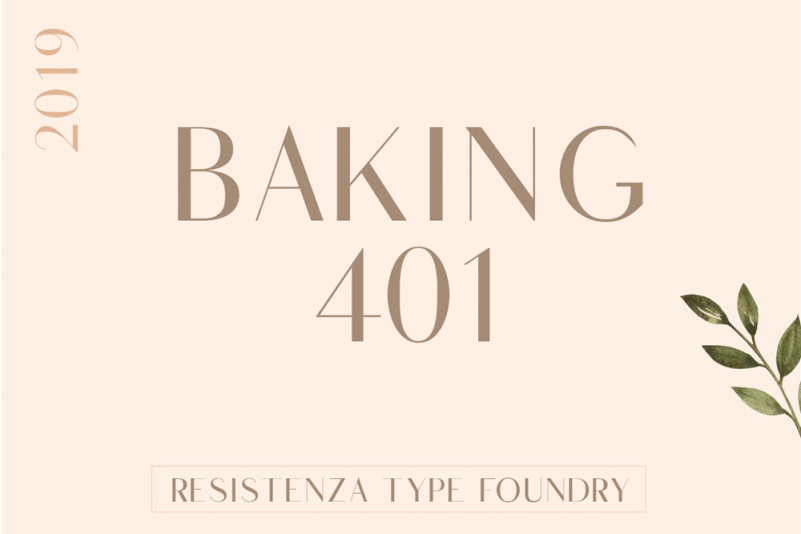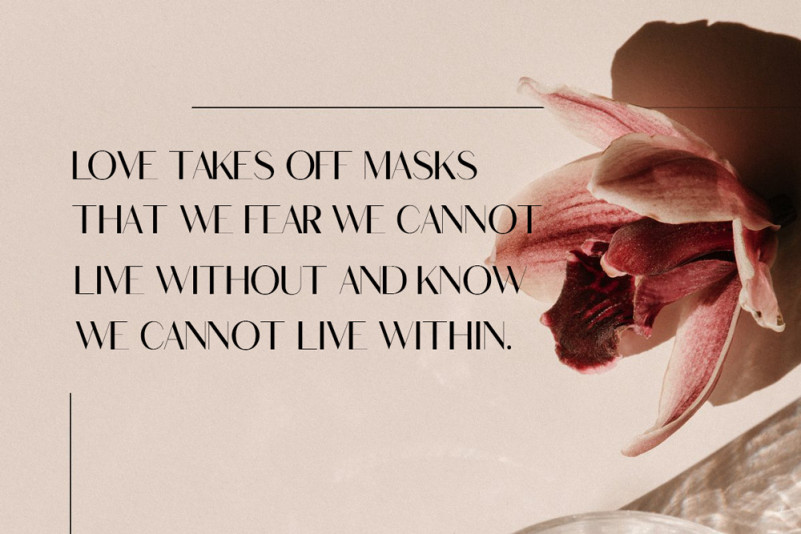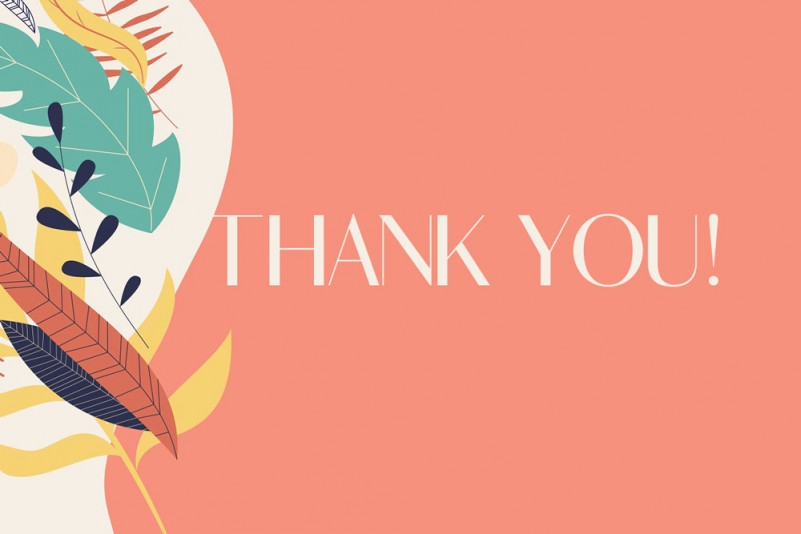
Quandco Sans Serif Font
Quandco – A minimal sans-serif typeface with the potential of being a perfect display / branding / logo font. Just one look and you will notice the unique flair of this typeface which will make it perfect for logotypes, headlines, branding materials, corporate identities, web & print purposes without any limits. Adding extra letter-spacing will make this font perfect for minimal headlines and logotypes as shown in demo graphics.